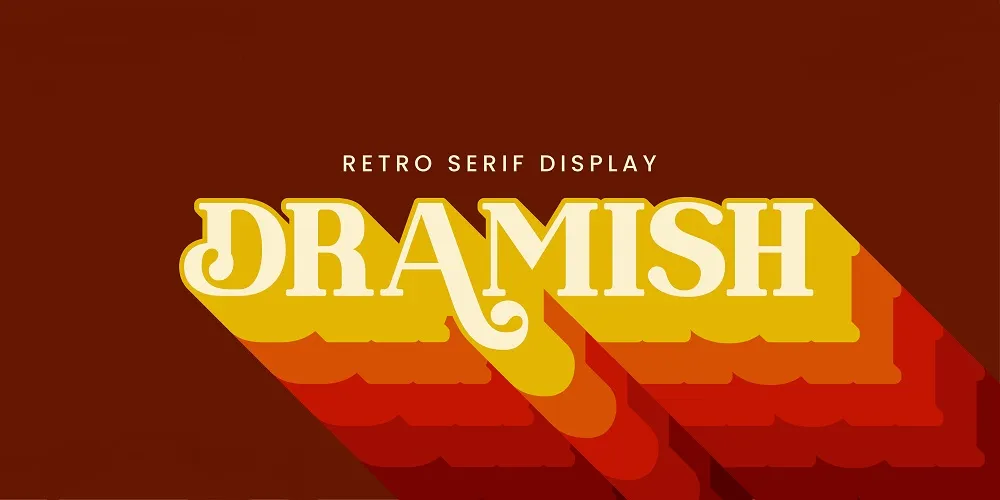
Dramish is a new font that has a retro style, it is a bold display font with serifs and all capital letters, and includes alternate characters and ligatures. This font suitable for logotype, logo text, graphic design for retro style.